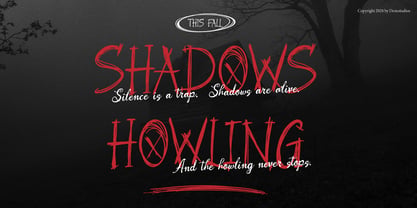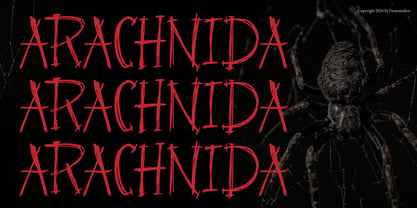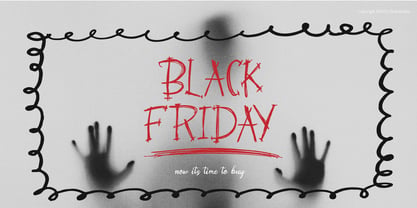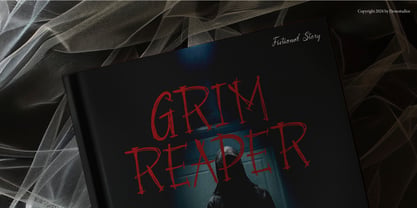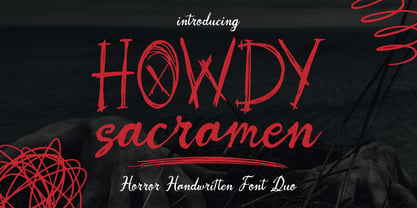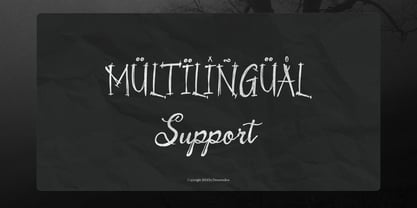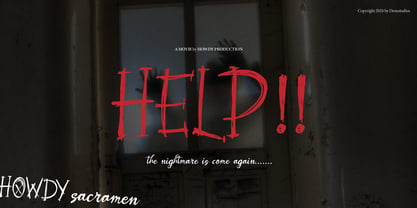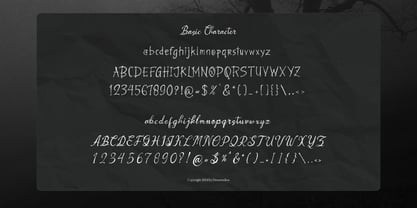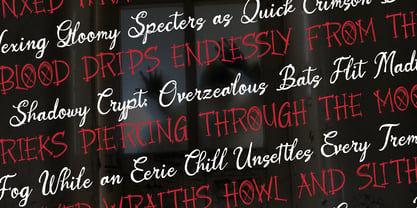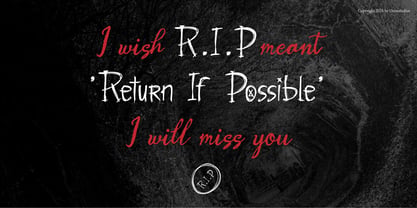
Howdy Sacramen
The Howdy Sacramen Font Family was designed by Dede Nugraha and published by Denustudio. Howdy Sacramen contains 1 styles. More about this family
Howdy Sacramen | Horror Handwritten Font Duo, from Denustudios, suitable for any projects such as: logos, branding projects, homeware designs, product packaging, mugs, quotes, posters, shopping bags, t-shirts, book covers, name card, invitation cards, greeting cards, label, photography, watermark, special events, and all your other lovely projects that need a Horror Handwritten Font Duo taste.
• Regular and Italic
• Standard glyphs
• Alternate and Ligature
• Fonts include multilingual support